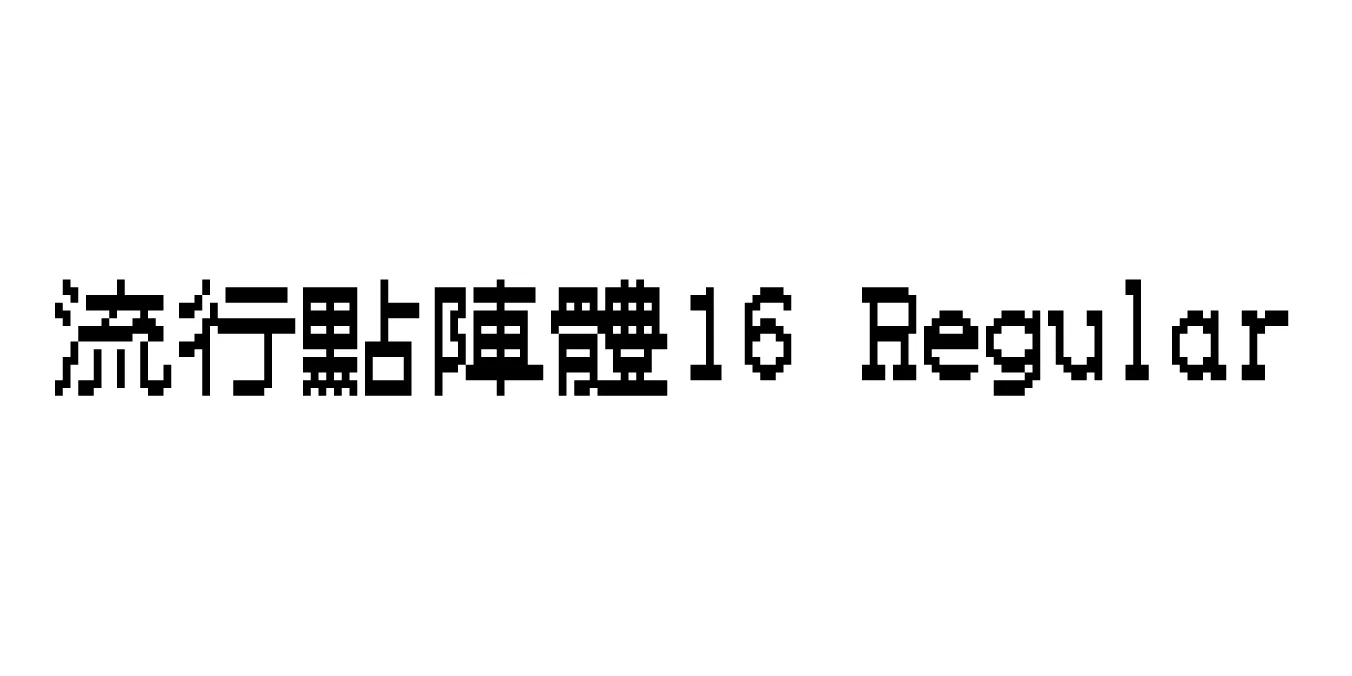
流行點陣體16 Regular
Designed by Hsuan-Chia (Peter) Lu
| Category | Pixel / Bitmap |
| Designer | Hsuan-Chia (Peter) Lu |
流行點陣體16 Regular (Pop Dot Matrix 16) is a specialized pixel font designed to evoke the nostalgic aesthetic of retro computing and classic 8-bit gaming consoles. Built on a meticulous 16x16 grid, this typeface focuses on clarity and structural integrity, ensuring that each character remains legible even at small scales. It is widely recognized in the open-source community for its balance between traditional Chinese calligraphy structures and the rigid constraints of bitmap technology.
The development of this font was driven by the need for high-quality, free-to-use pixel typography that supports a wide range of characters. It has become a favorite for indie game developers, digital artists, and tech enthusiasts who want to recreate the "Lo-Fi" visual style of the 1980s and 90s. Its clean edges and consistent spacing make it exceptionally suitable for modern low-resolution displays and specialized hardware interfaces where vector fonts might appear blurred or inconsistent.
流行點陣體16 Regular Best Uses
Ideal for UI and dialogue boxes in retro-style RPGs or arcade platformers.
Perfect for creating pixel art overlays, posters, and tech-themed graphics.
Excellent for header elements on websites focusing on nostalgia or technology.
Highly functional for low-resolution screens like LED matrix panels and micro-controllers.